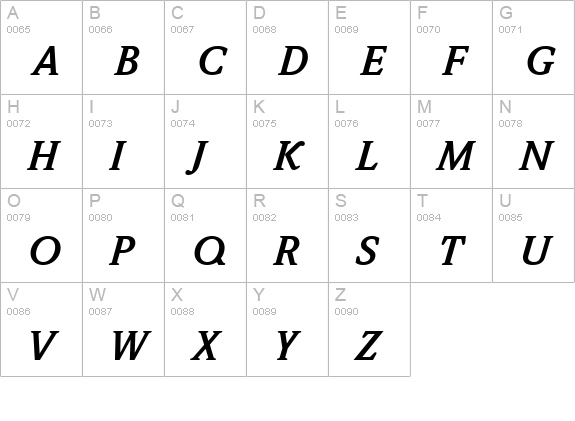
Quintessence SSi Bold Italic is a strong, high-contrast, italic variant in the Quintessence typeface family \xE2\x80\x94 well suited to headlines, attention-grabbing titles, and strong calls-to-action.
Introducing Quintessence SSi Bold Italic, a font that exudes elegance, sophistication, and an undeniable sense of style. With its sleek curves and bold strokes, this font is a testament to the artistry and craftsmanship of its designer. Quintessence SSi Bold Italic is the epitome of versatility, effortlessly adapting to any design project. Whether it's for a high-end fashion magazine, a luxurious branding campaign, or an exclusive event invitation, this font will elevate your creations to new heights. But what truly sets Quintessence SSi Bold Italic apart is its unrivaled sense of freedom. This font allows you to unleash your creativity without any constraints, giving you the power to express yourself fully. With its bold italic variant, it adds a touch of flair and drama to your designs, making a bold statement that demands attention. And the best part? Quintessence SSi Bold Italic is freely available to download at FontsMarket.com. This means that you can instantly access this remarkable font, without any cost or hassle. FontsMarket.com offers a vast collection of fonts, catering to every design need and preference, ensuring that you can find the perfect typeface for your project. So, whether you're a professional designer looking to elevate your work or an aspiring creative seeking to make a statement, Quintessence SSi Bold Italic is the font that will take your designs to the next level. Download it for free at FontsMarket.com and let your imagination soar.